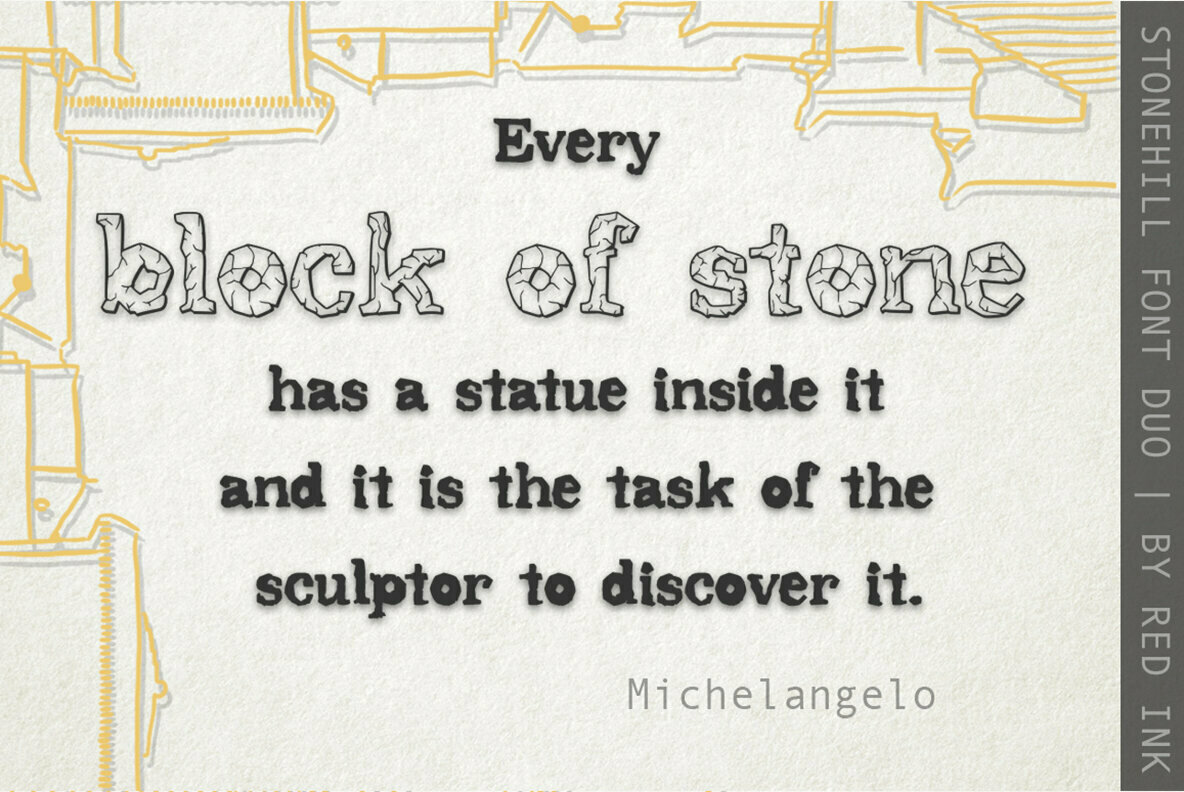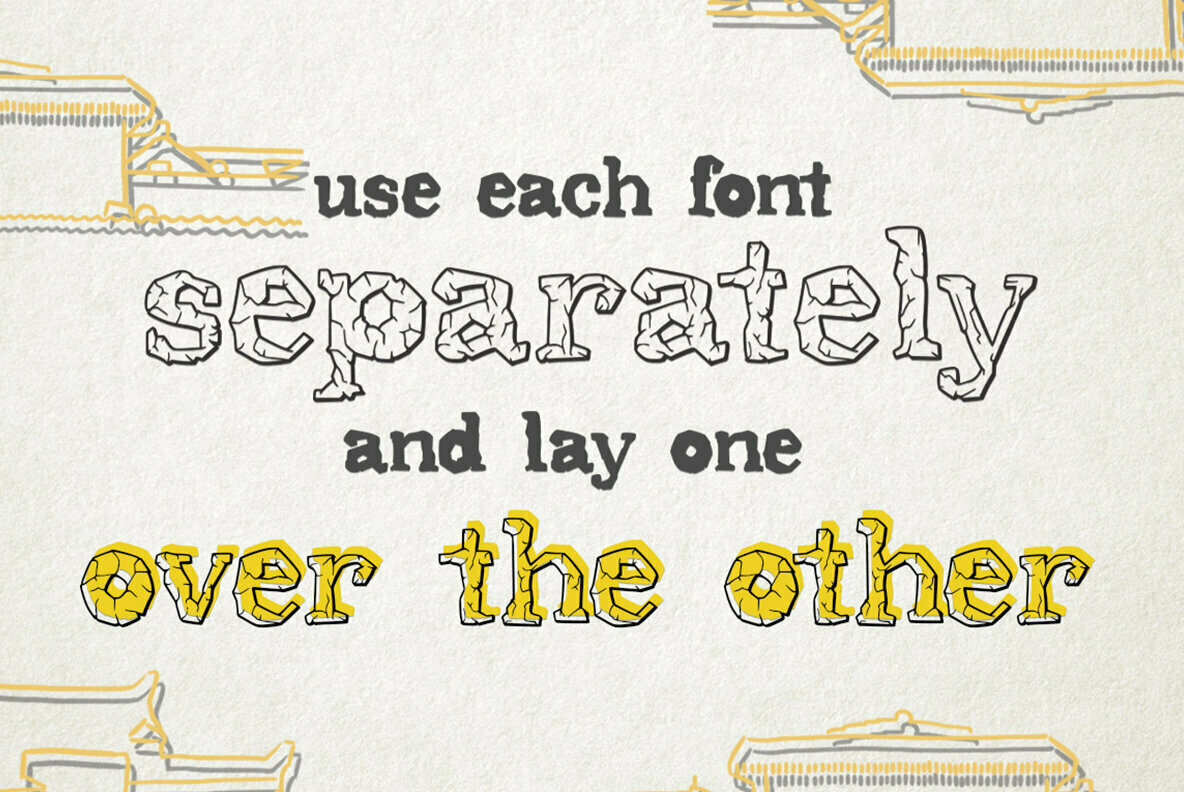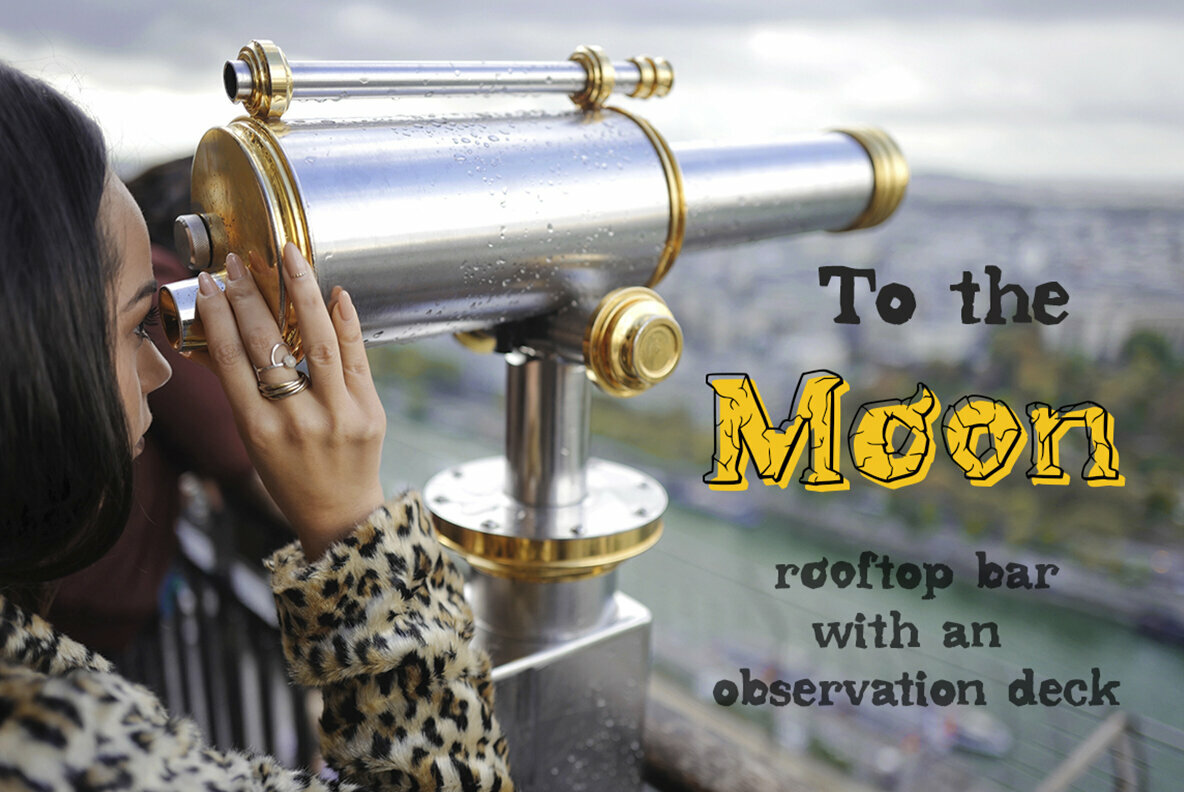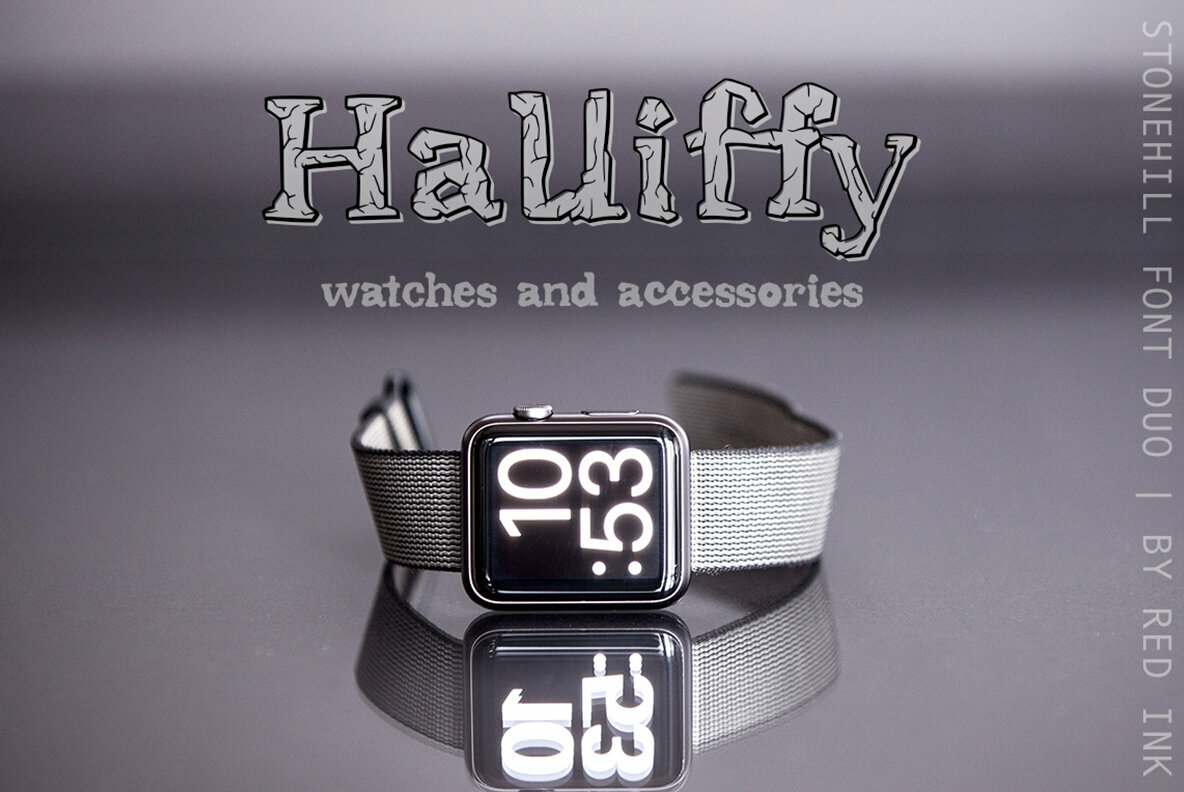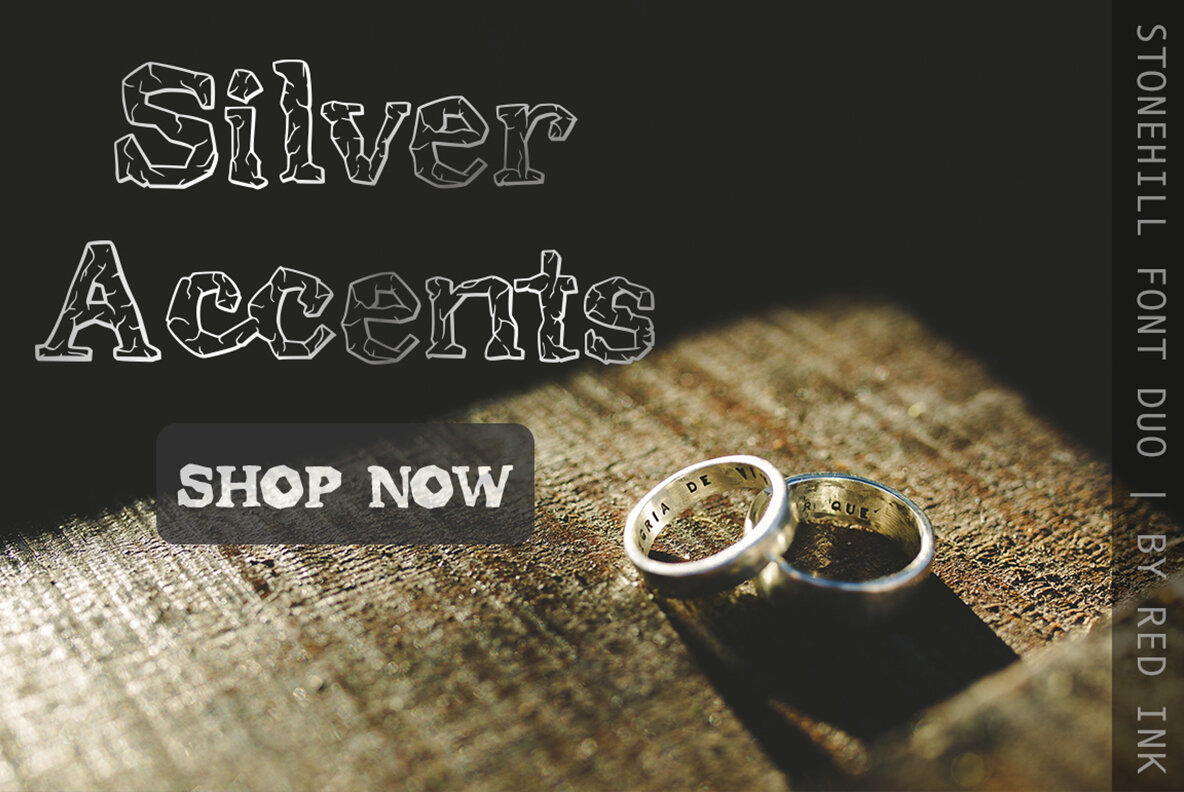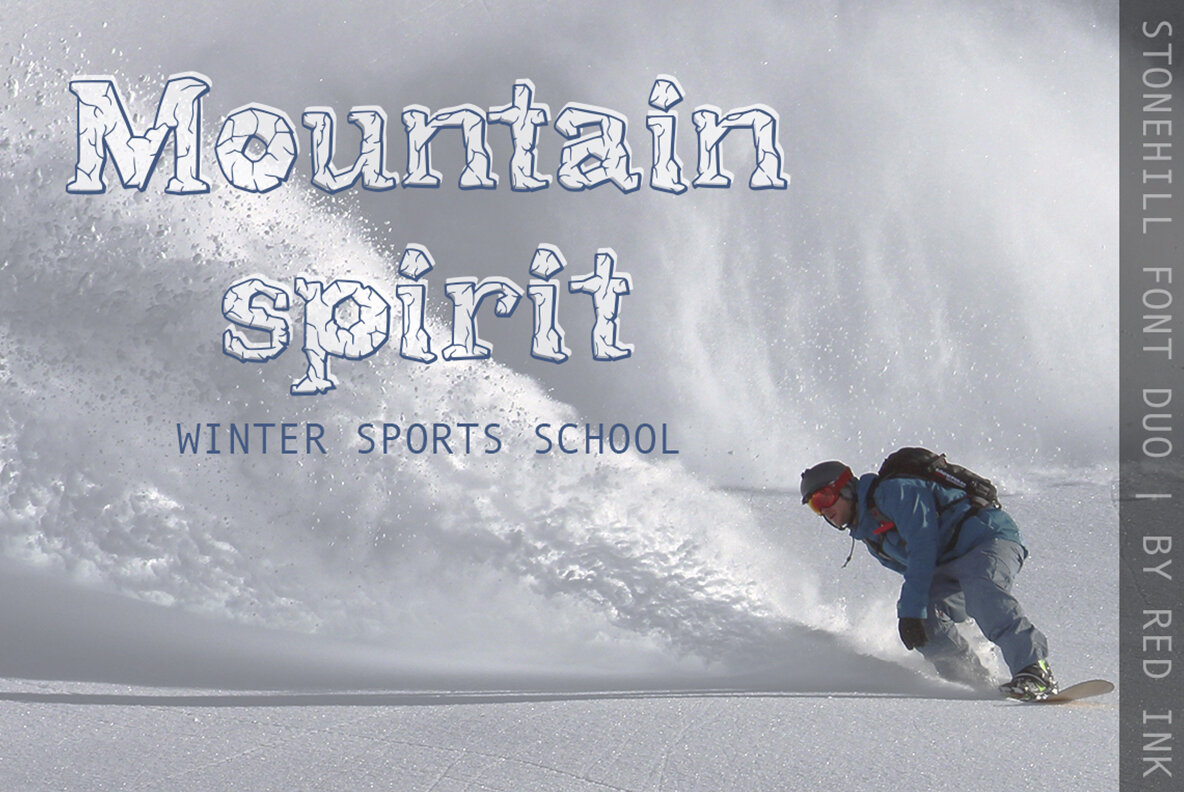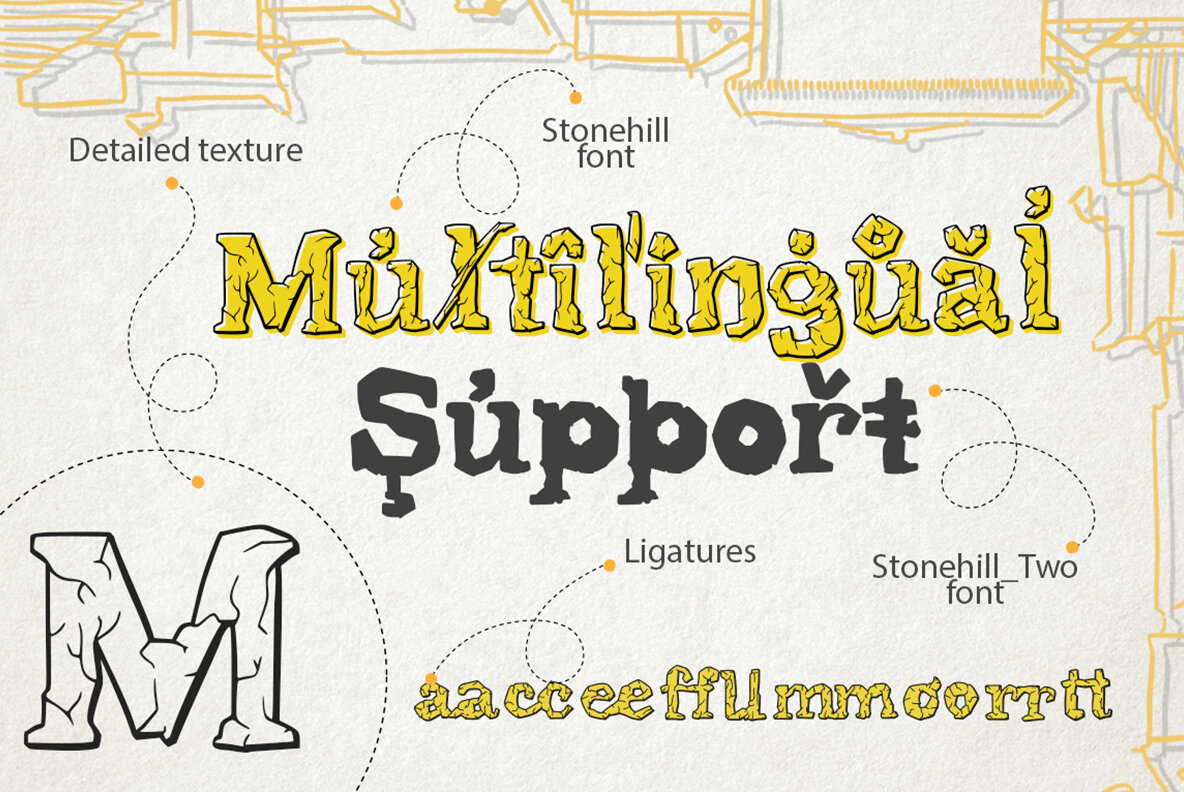
Stonehill Font
Typography enthusiasts and professional designers alike will appreciate the unique charm of Stonehill, a duo font offering from designer Irina Trigubova. This package comprises two distinct styles, each with its own character and appeal. The duo creates a highly versatile tool for unique typography projects. By overlaying the decorative font on the vintage style, moving one slightly, or altering colors, you can craft a distinctive visual experience.Stonehill: Classic Duo Font with Vintage Flair
Stylish Components
Additional Features